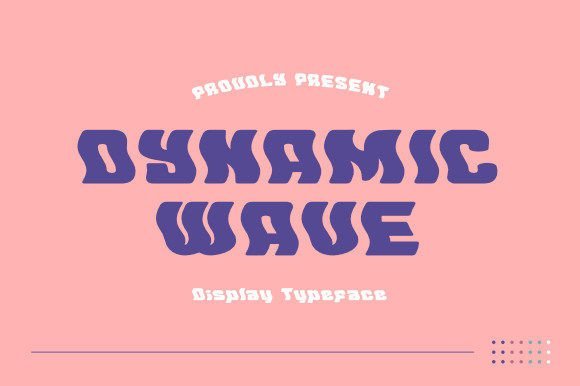
Meet the Dynamic Wave Font, a groovy display font that’s sure to bring a smile to your face and a dash of retro charm to your designs. This funky font is perfect for adding a carefree vibe to your hippie-inspired projects, from music festival posters to bohemian fashion brands.
As a designer, you know the value of having the right tools in your toolbox. The Dynamic Wave Font is a valuable addition to your collection, offering a unique and eye-catching way to express your creativity and stand out from the crowd.
Key Features of Dynamic Wave Font
- Unique Characteristics: The Dynamic Wave Font features a unique, hand-drawn design with a flowing, organic feel, making it perfect for creative and artistic projects.
- Font Weight and Style: The font comes in three weights: Light, Regular, and Bold, as well as an Italic version, giving users a range of options for their designs.
- Kerning and Ligatures: The font includes advanced kerning and ligature features, ensuring that text is displayed with precision and elegance.
Dynamic Wave Font Review
Overall, I’d say the Dynamic Wave Font is an interesting addition to any designer’s toolkit. Here’s what I think works well:
- ✨ The font’s dynamic feel really adds a touch of movement and energy to any text, making it perfect for creative and artistic projects.
- ✨ The font is highly customizable, allowing designers to adjust the wave pattern to suit their needs, from subtle to dramatic.
- ✨ The font is well-suited for digital applications, such as website headers, social media graphics, and animations.
- ⚠️ The font may not be the best choice for body text, as the dynamic feel can be overwhelming and difficult to read in large quantities.
Overall, I think the Dynamic Wave Font is a great option for designers looking to add a bit of flair to their projects. While it may not be suitable for all applications, it’s a great tool to have in your arsenal for the right projects.